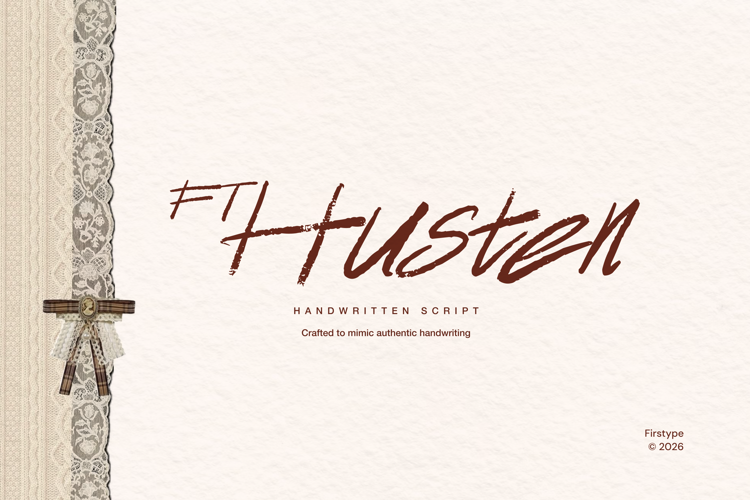
FT Husten – Authentic Handwritten Script Font
FT Husten is an authentic handwritten script font meticulously crafted to bring a raw, organic, and personal touch to your creative projects.